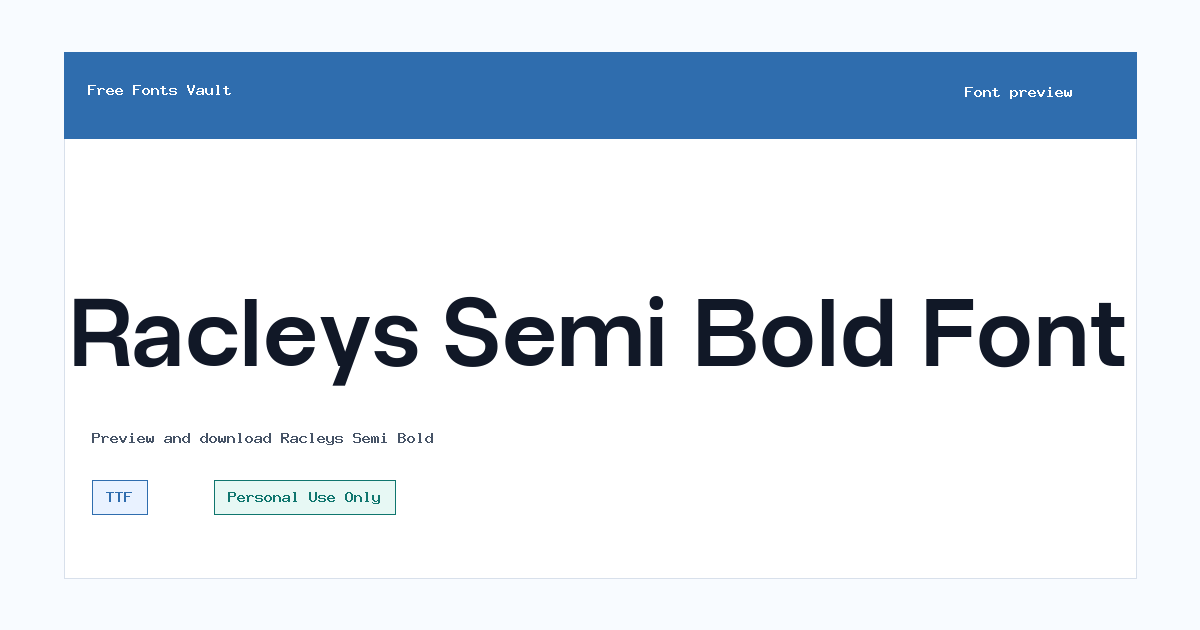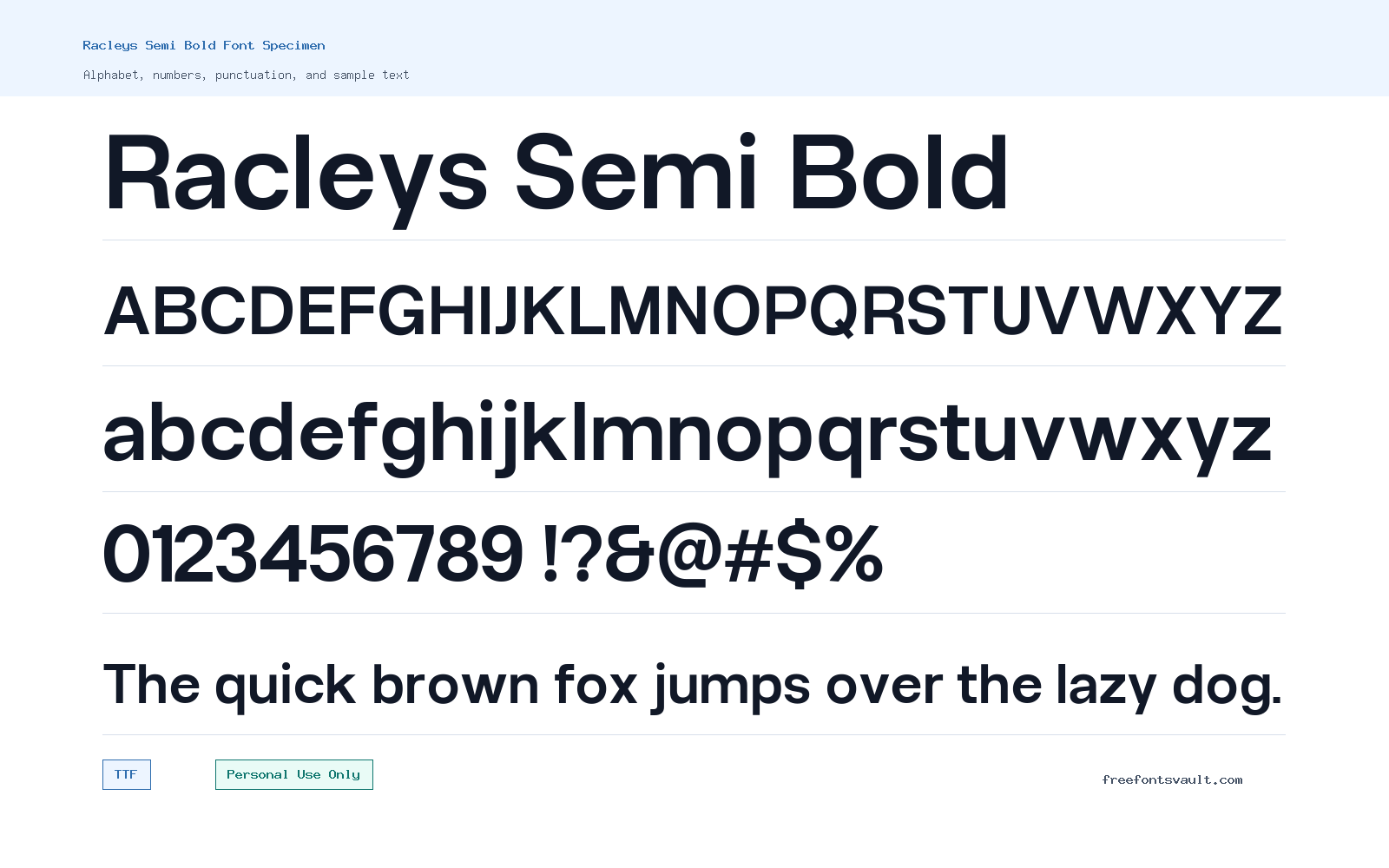
Racleys Semi Bold
Racleys Semi Bold font preview showing the family name
Racleys Semi Bold Font
Racleys Semi Bold font specimen showing alphabet, numbers, and sample text
Racleys Semi Bold font.
Racleys Semi Bold is a sans serif font with a strong 700-weight style, useful when you want a clean headline that feels firm without becoming too heavy.
About Racleys Semi Bold
Racleys Semi Bold sits in the practical middle ground between a regular text face and a full bold display cut. The weight gives words a clear presence, which makes it useful for titles, short labels, poster lines, social graphics, and logo draft work where the lettering needs to stand out quickly. Because the file is a TTF font and the style is marked as normal, it should be straightforward to install in common design apps and test in layout, branding, and web mockup projects. The safest way to judge it is to type your own project name, headline, or call-to-action into the preview and check the spacing at the size you plan to use.
Use Racleys Semi Bold where short text needs structure and clarity: event posters, YouTube thumbnails, landing-page hero headings, packaging mockups, presentation covers, and simple identity concepts. For logo work, test the font in both uppercase and title case, then look closely at the spacing between repeated letters, narrow letters, and round shapes. Semi-bold sans serif fonts can look clean at large sizes, but they may feel dense if used for long paragraphs. If you need body copy, pair it with a lighter, more neutral sans serif or a readable serif and let Racleys Semi Bold handle headings, buttons, badges, or section titles.
For web mockups, Racleys Semi Bold can help create a confident navigation label, banner title, or product-card heading. Keep line lengths short, add enough letter spacing only if the design feels tight, and avoid using the font for small legal text or long descriptions until you have tested readability on mobile screens. It can also work well in poster compositions where the type sits over a simple background, but be careful with busy images; a semi-bold face needs contrast and breathing room to stay legible.
• Semi-bold 700 weight for stronger headings, buttons, posters, and display text
• Best suited to short text rather than long reading paragraphs
• Useful for logo drafts, social graphics, web hero sections, packaging concepts, and title layouts
• Logo concepts and brand-name testing for personal projects
• Poster titles, event graphics, and bold short headlines
• Website mockups, hero sections, buttons, and navigation labels
• Social media graphics, thumbnails, banners, and presentation covers
• Packaging mockups and display text where clean sans serif lettering is needed
What kind of font is Racleys Semi Bold?
Racleys Semi Bold is a sans serif font in a semi-bold 700 weight. It is best used for short, clear display text such as headings, posters, labels, logo drafts, and web mockup titles.
Is Racleys Semi Bold good for body text?
It is better for headings and short text. The semi-bold weight can become heavy in long paragraphs, so pair it with a lighter, more readable font for body copy.